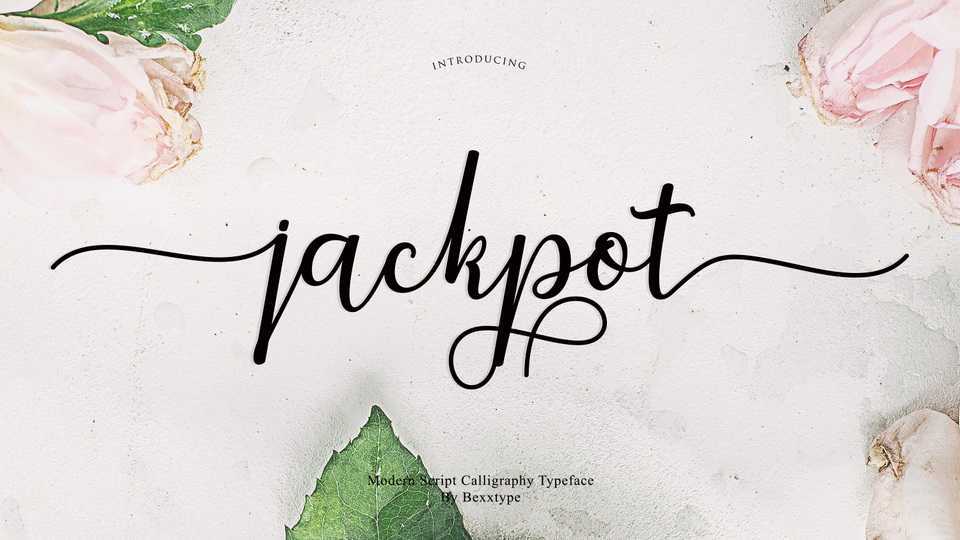
Download Jackpot font, a lovely modern script with a handmade calligraphy style, decorative characters and a dancing baseline! Jackpot font looks beautiful on wedding invitations, greeting cards, business cards, quotes, posters and more.
Designer: Bexxtype